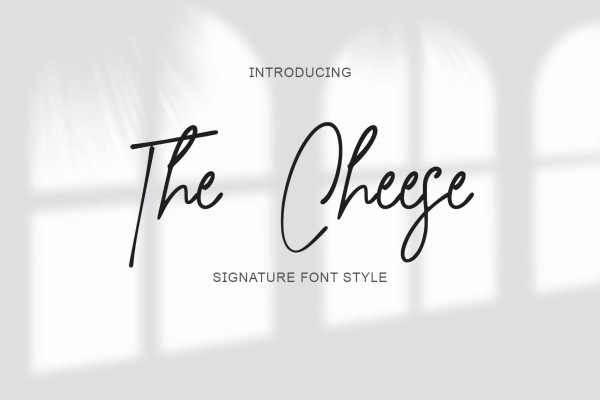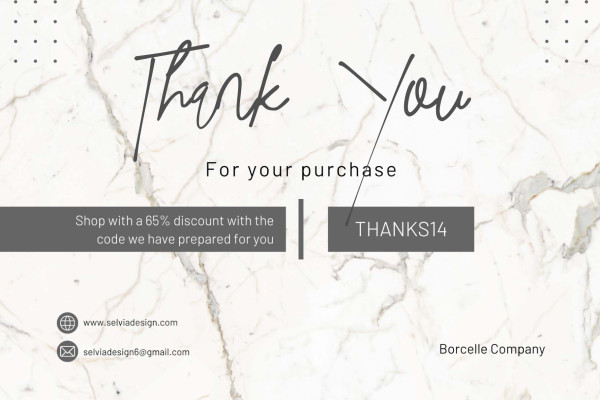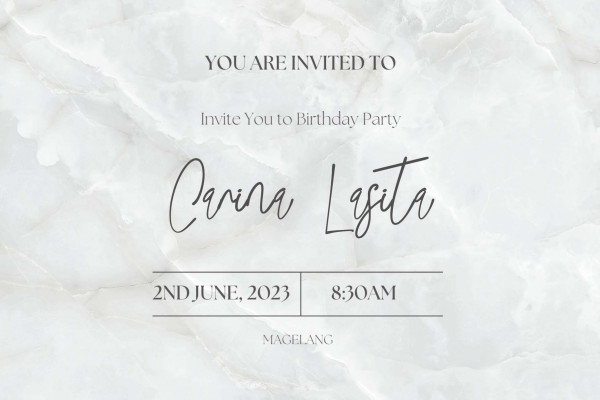
The Cheese Font
The Cheese Font is an elegant and beautiful signature font. It is suitable for weddings, invitations, engagements, business branding, logos, banners, posters, promotions, social media, and so much more.